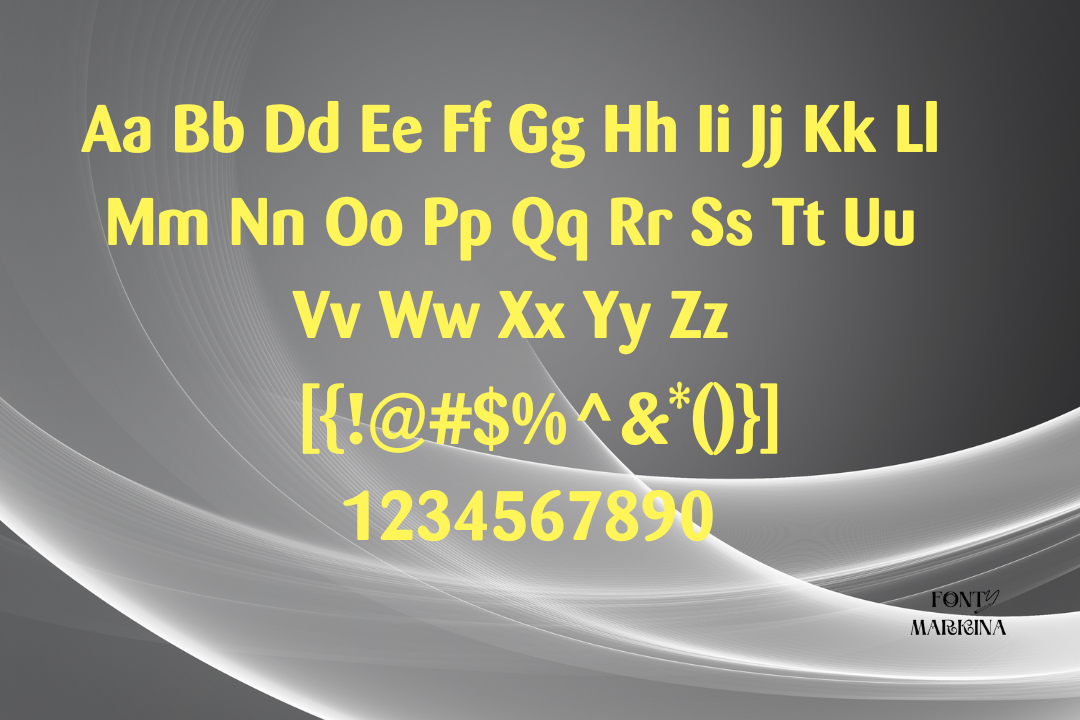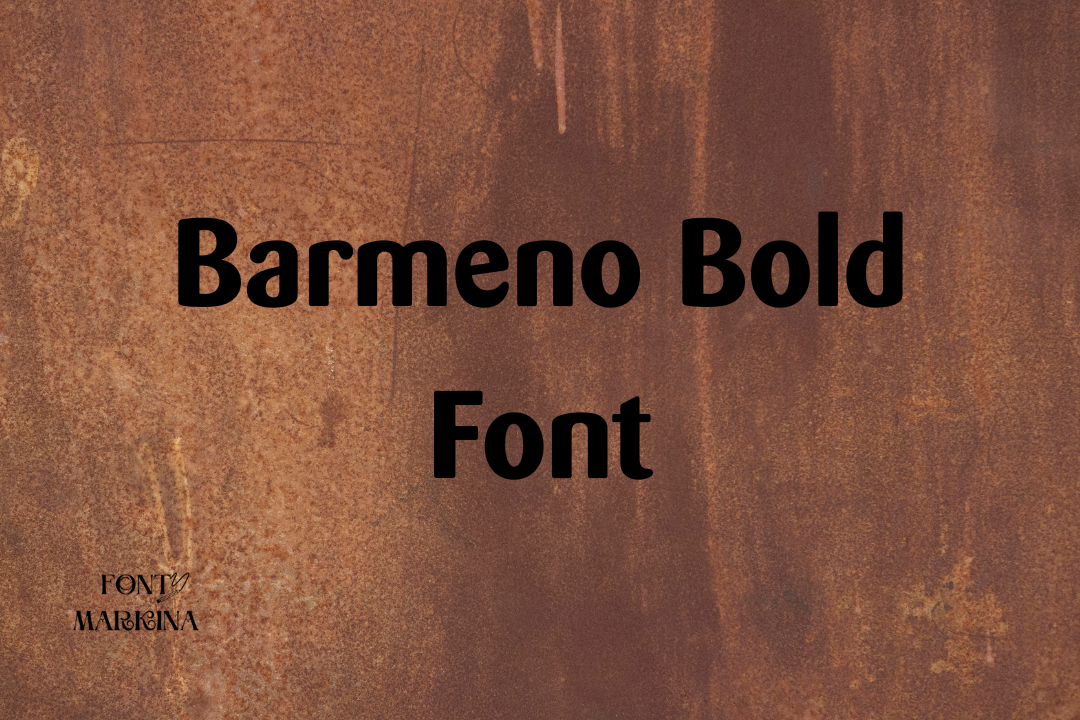
Hi viewers! introducing to you Barmeno Bold Font which has perceptive features. This awesome font was developed and released by German musician, Hans Reichel in the year 1983. It is from the sans-serif family of fonts.
One classic piece of information about this family is that it includes 31 distinctive and fashionable characters and also has 26 advanced letters. This texture has styles of regular, bold, medium, and others that increase its worth.
Its similar beautifully delicious font and klein font has also a lot of features. Barmeno Bold Font allows utilizing its generator tool for a vast variety of graphic designs.
Who Can Use Barmeno Bold Font
This staggering typeface is used for a vast variety of projects according to the necessities of users. This texture is commonly used for some special purposes.
Web Designs
A great number of web architects used this texture for personal blogs, templates, and engaging designs for their websites.
Creative Projects
This texture is used for different types of creative programs like mug designs, logos, and much more. Also, this font is used for constructing graphical layouts.
Headlines
This family is immaculate for headlines of newspapers and articles headlines. You can also utilize this family for a variety of titles.
Barmeno Bold Font View
| Name | Barmeno Bold Font |
| Designer | Hans Reichel |
| Type | Sans Serif |
Who is the manufacturer of the Barmeno Bold typeface?
Hans Reichel a famous German musician is the original creator of this family.
Is there any alternative font to the Barmeno Bold typeface?
Yes, the nimbus sans font has the same look and style as this one. It is most relative to this family.